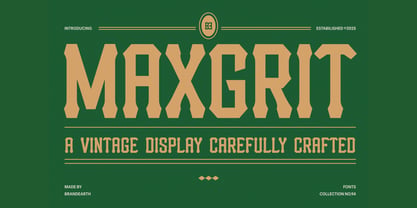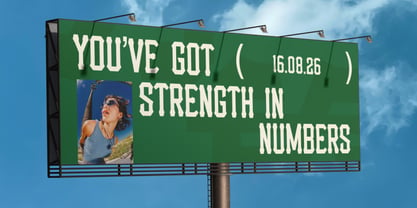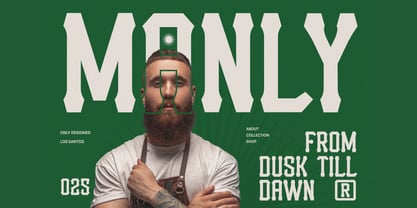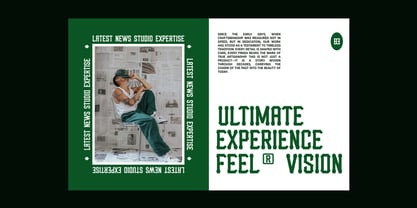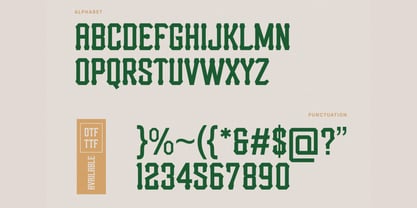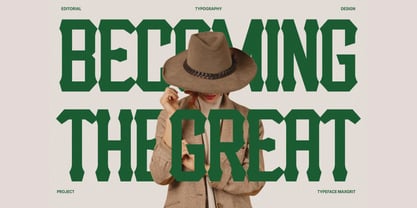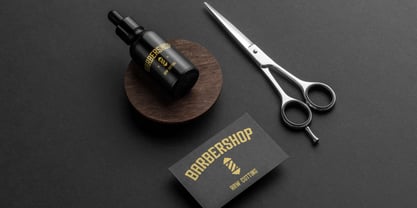
Maxgrit
by Brandearth
The Maxgrit Font Family was designed by Moch Rasjid Wiyono and published by Brandearth. Maxgrit contains 1 styles. More about this family
Maxgrit is a bold vintage display typeface inspired by classic western signage, retro posters, and heritage branding. Carefully crafted with strong geometric shapes and distinctive angled terminals, Maxgrit delivers a powerful and timeless typographic presence. Maxgrit is designed for projects that require bold vintage character and strong visual impact. Its classic western-inspired shapes make it ideal for retro branding, barbershop logos, vintage packaging, sports graphics, posters, signage, and heritage-style marketing materials.
Designers: Moch Rasjid Wiyono
Foundry: Brandearth